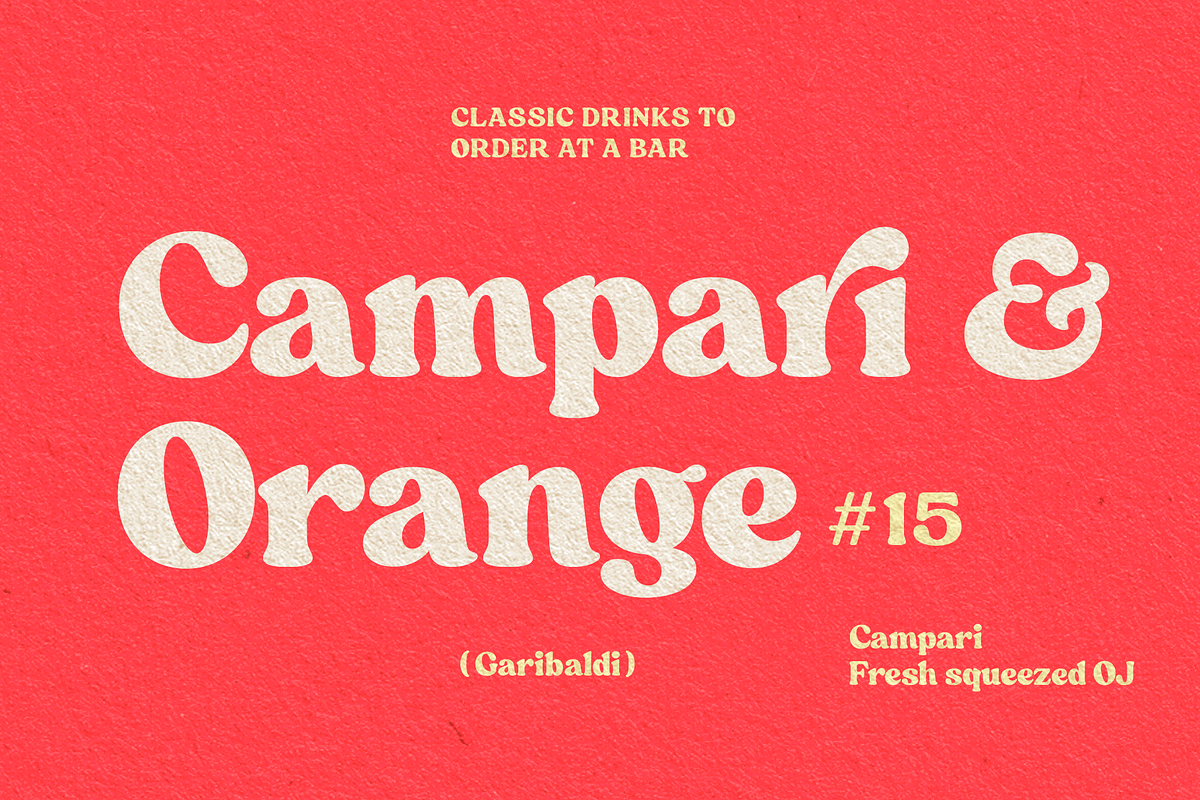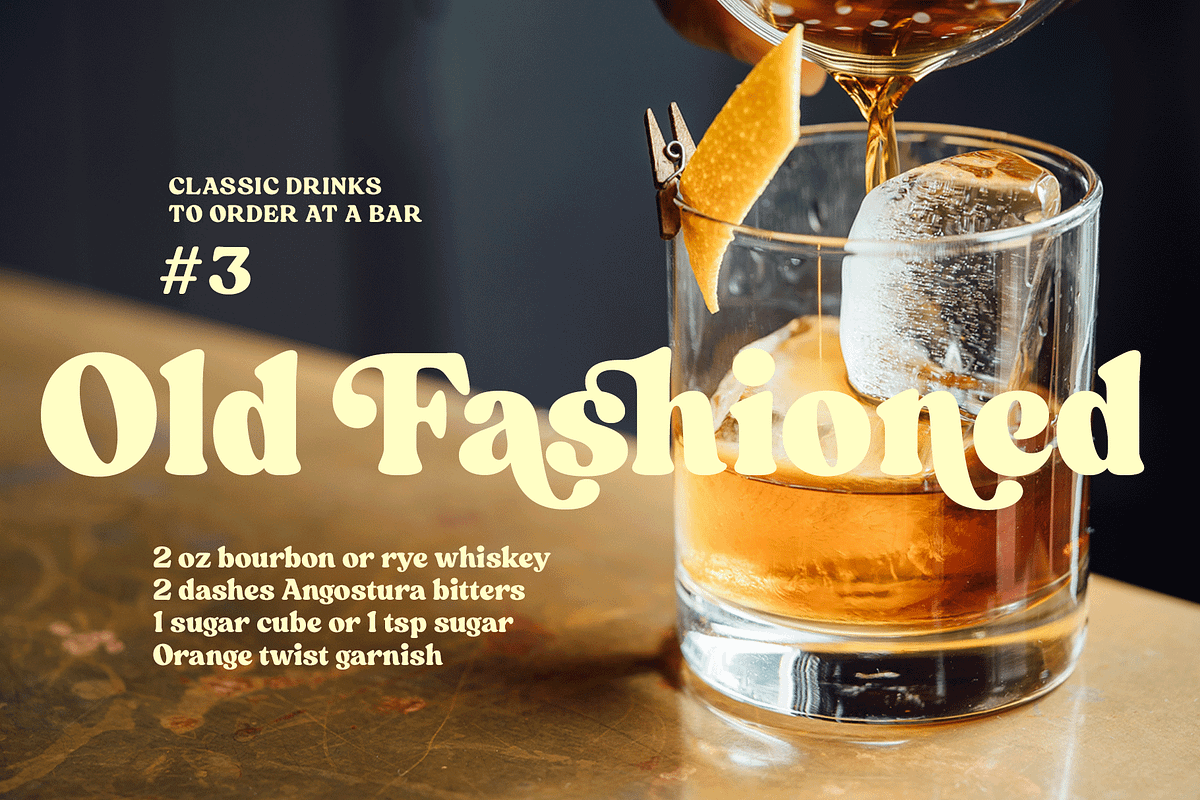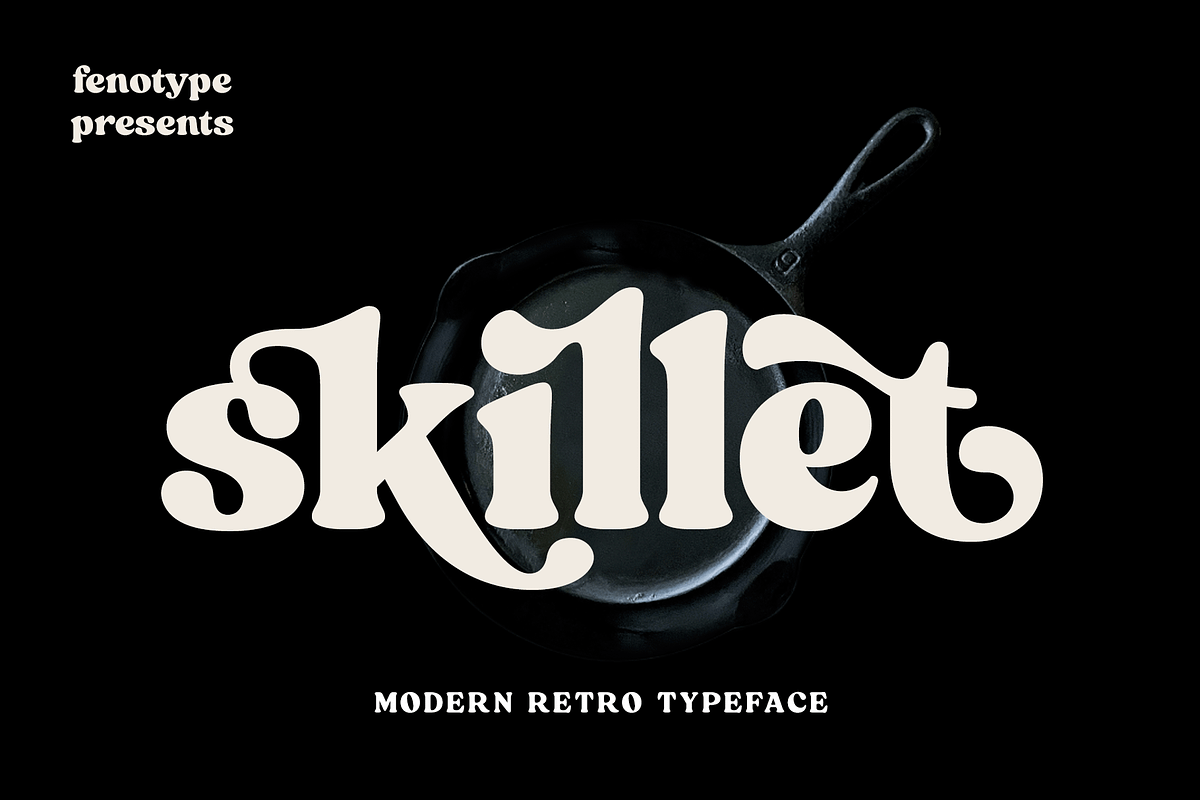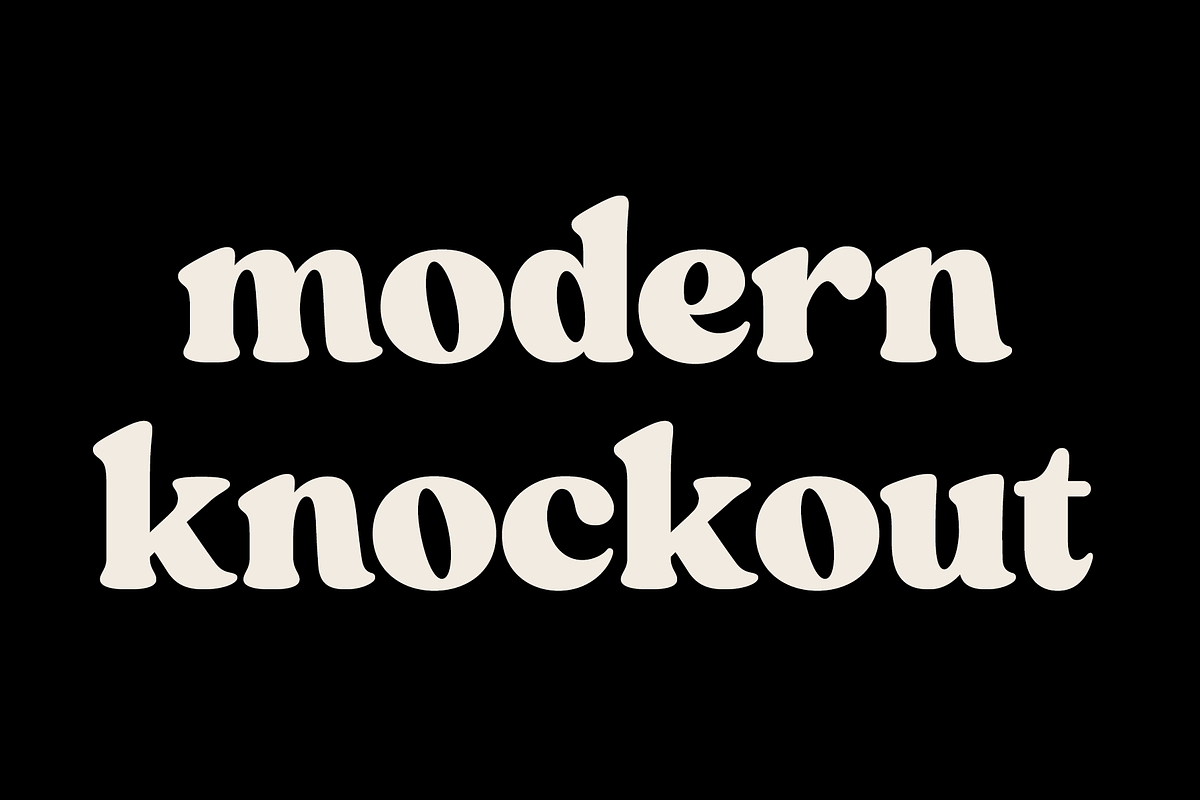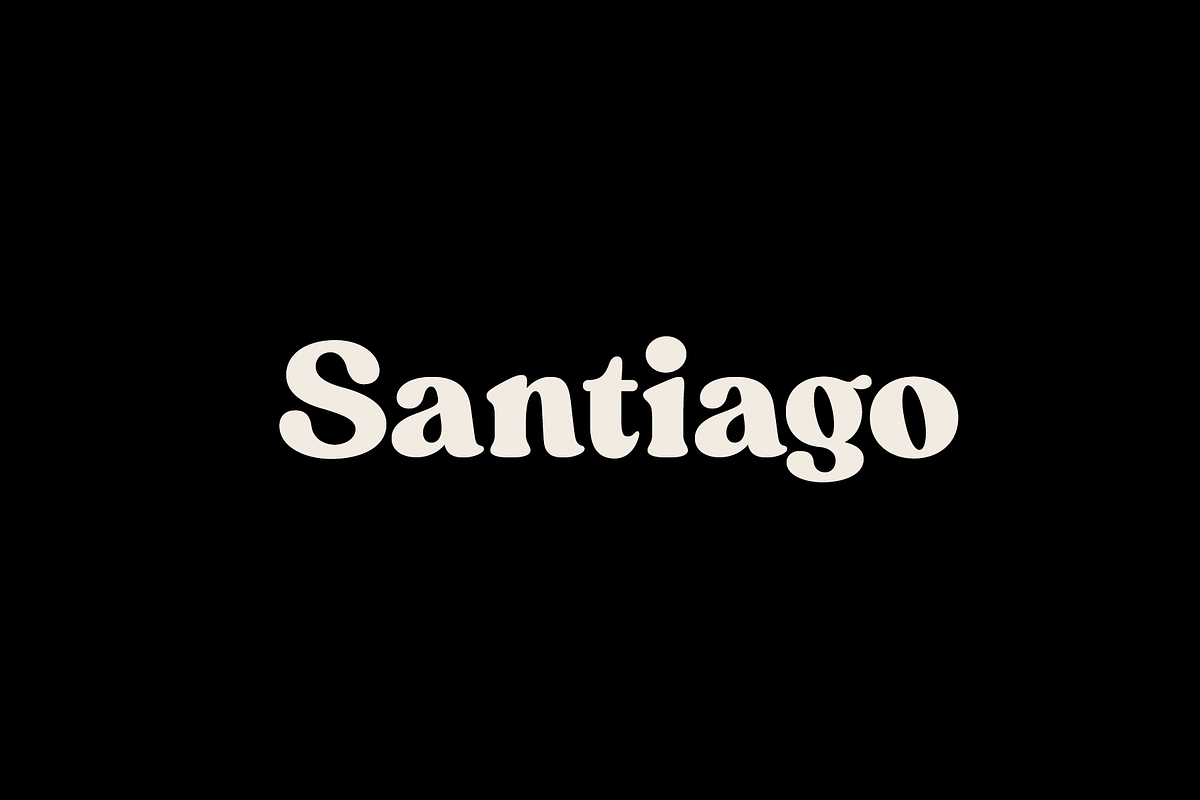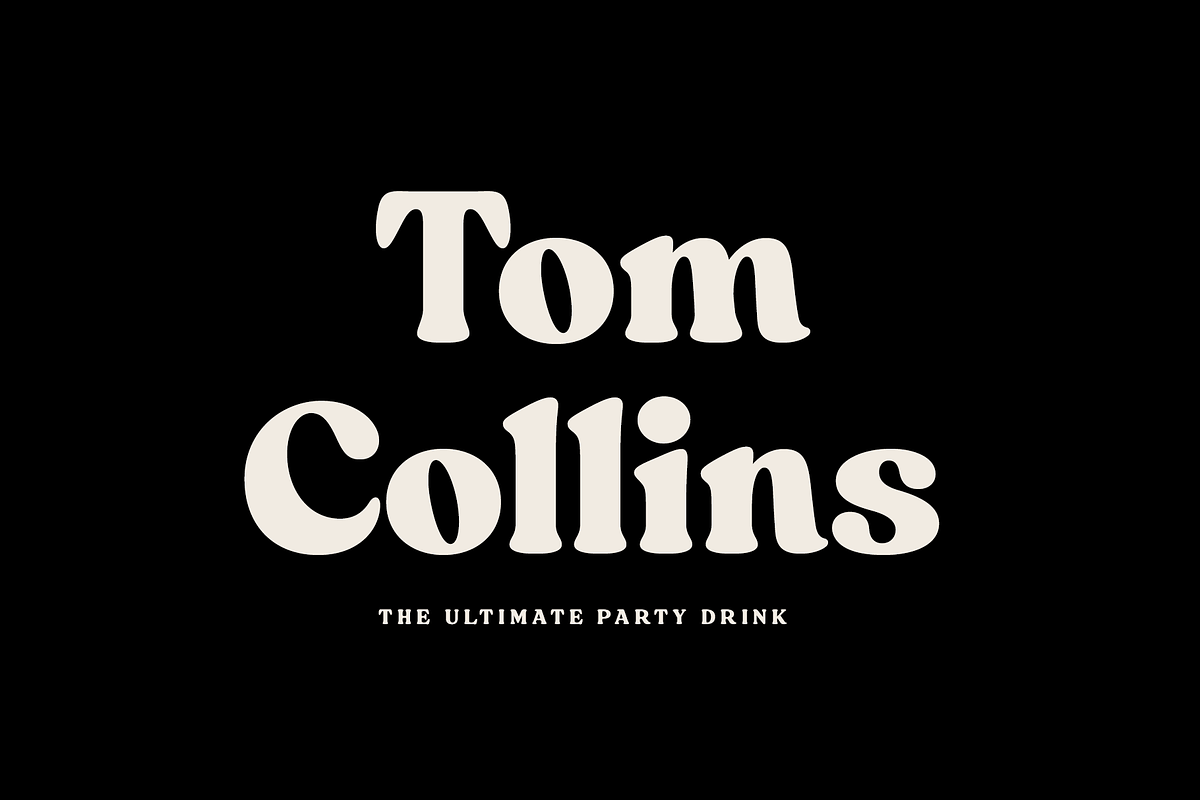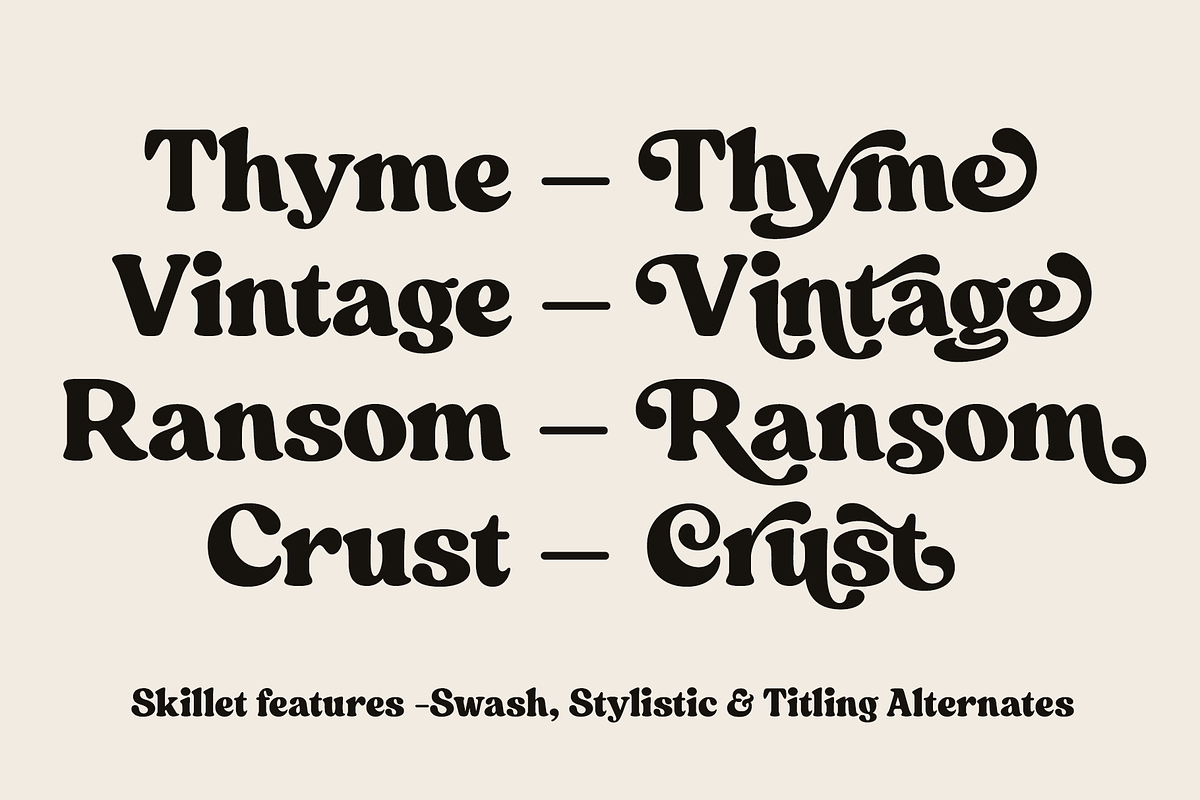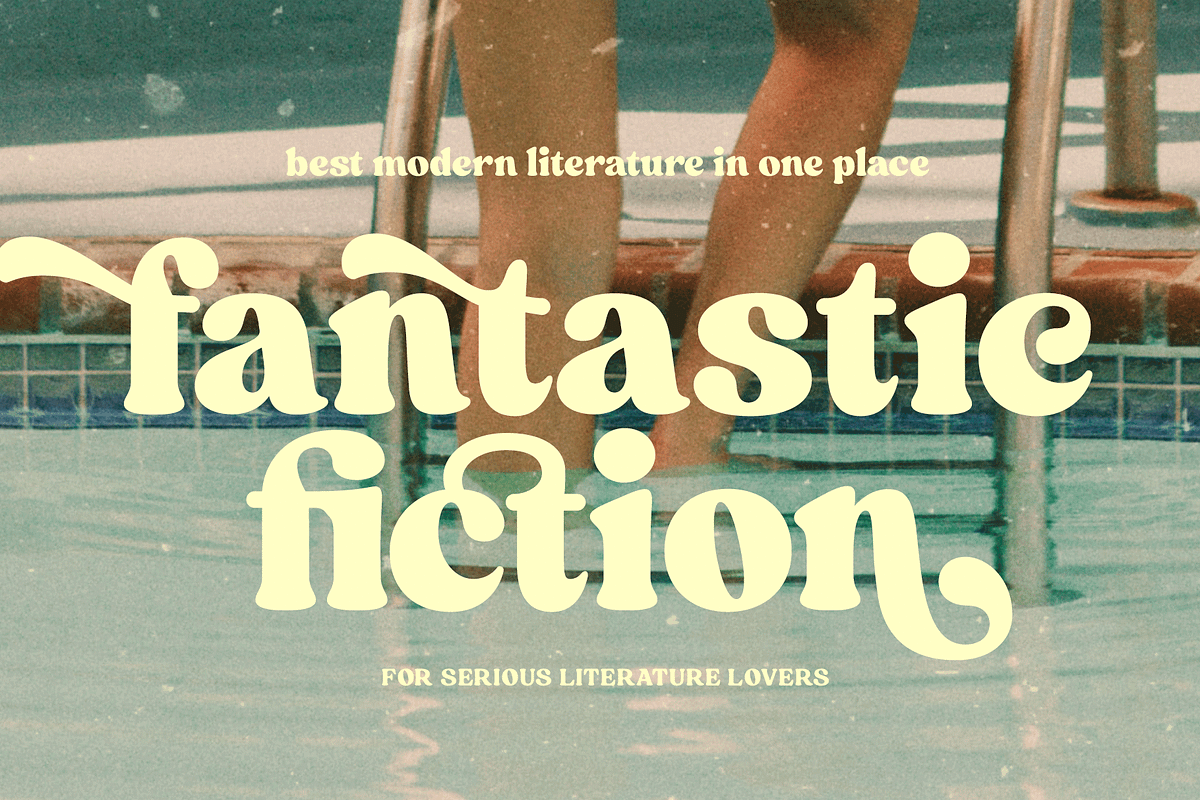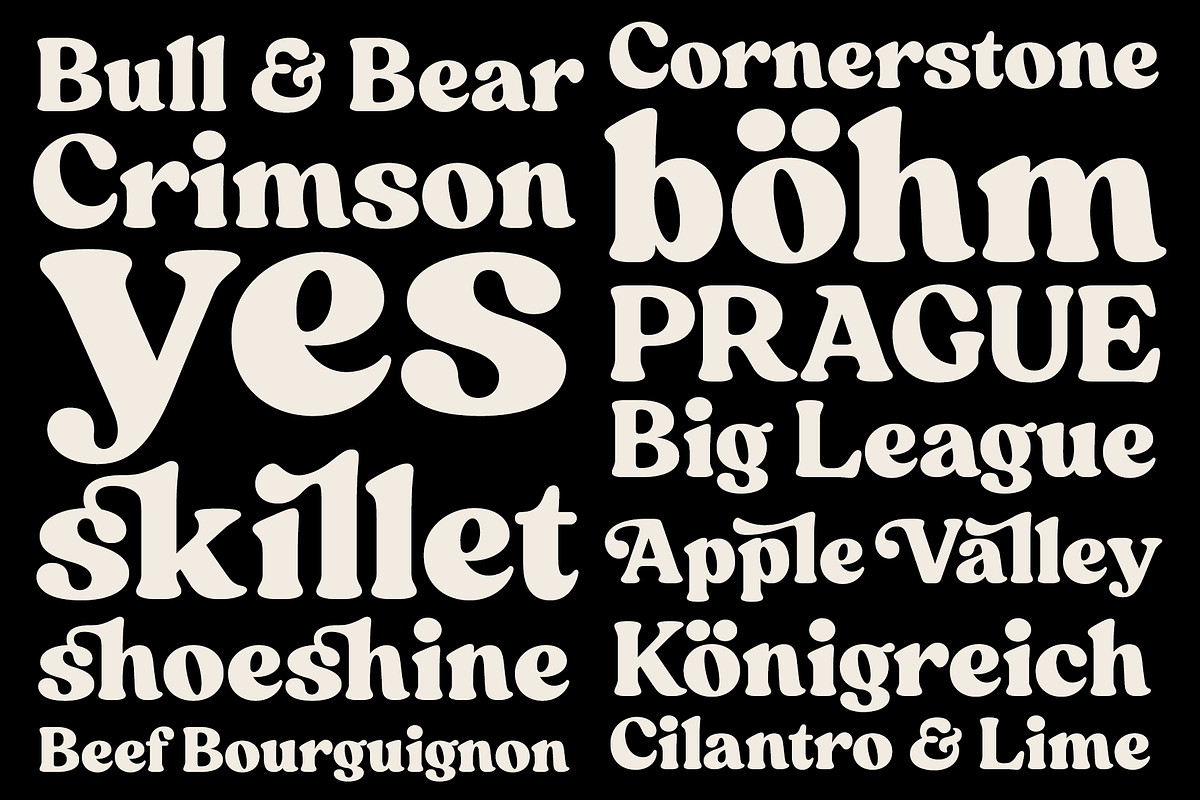
Skillet is a bold vintage style serif font full of hedonism and joie de vivre. Skillet has strong character and extremely smooth features and self-confidence that springs from within. Skillet comes in two weights: Regular and Condensed. Even though the difference is small, Regular takes over the space while Condensed gives a more intimate impression.
Skillet comes with a wide range of OpenType -features. Keep Standard Ligatures on in normal use. Try Discretionary Ligatures, Swash, Stylistic or Titling Alternates for custom headlines or logos.